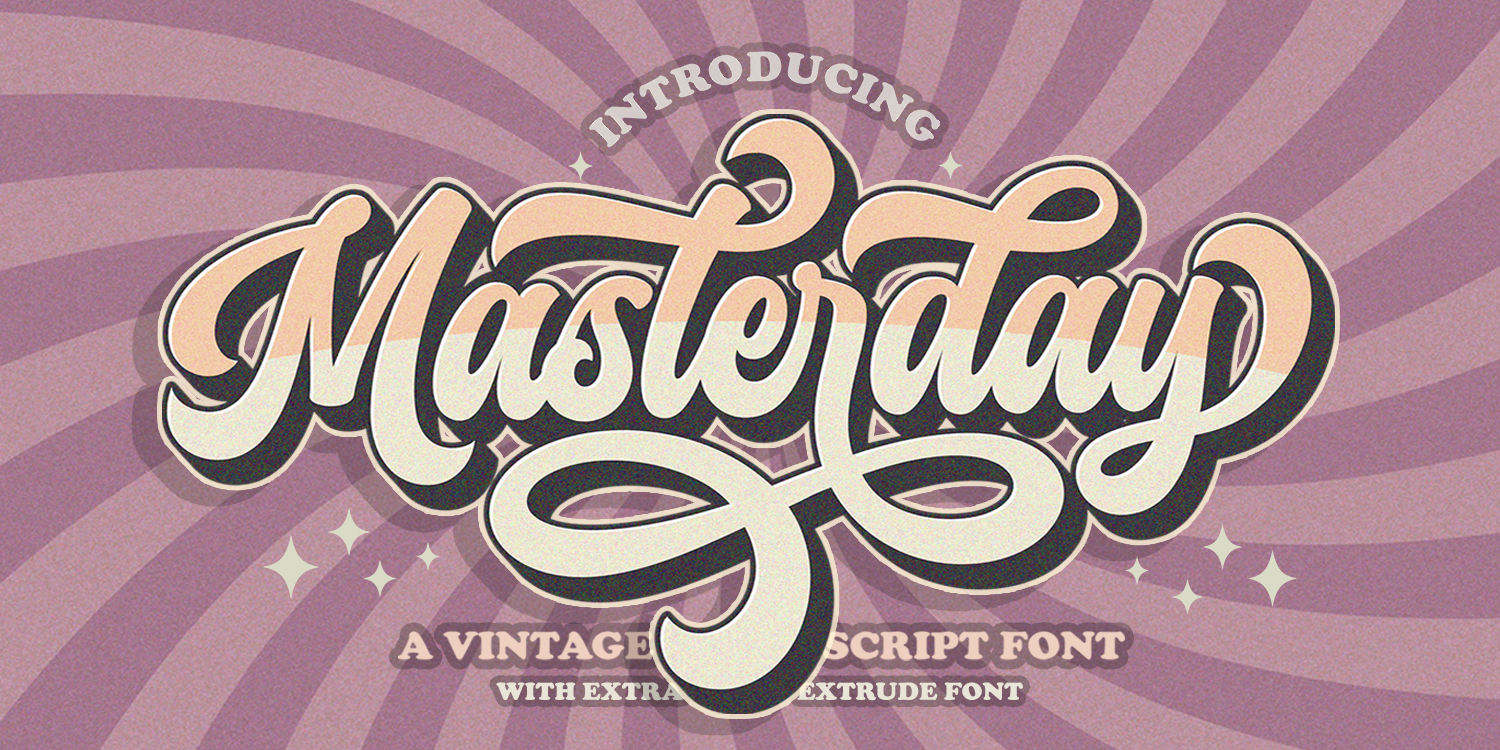
Masterday Font is perfect for premium corporate branding, executive presentation materials, luxury business cards, high-end conference signage, professional service marketing, master class promotions, elite coaching programs, success-oriented publications, leadership development materials, and sophisticated business communications that demand excellence and authority.
What makes Masterday Font exciting is its ability to convey mastery, achievement, and professional excellence through its confident letterforms that embody the spirit of successful leadership and accomplished expertise. This commanding typeface captures the essence of peak performance and professional mastery with its balanced proportions and authoritative character. The font's sophisticated presence inspires confidence and respect, making it ideal for brands and individuals who represent the pinnacle of their fields.
The Masterday Font family includes regular, medium, and bold weights designed for maximum professional impact across business applications. Special achievement symbols, success-oriented ornaments, and executive-level decorative elements complement the main typeface, while enhanced kerning ensures optimal readability for both boardroom presentations and intimate business correspondence.
Masterday Font Free Download offers business professionals and designers access to typography that commands respect and projects authority. Its expertly crafted letterforms maintain excellent legibility while conveying an image of competence, success, and professional mastery. The font's versatile nature adapts seamlessly from corporate headquarters to entrepreneurial startups seeking to project expertise.
Achieve typographic mastery with Masterday Font and create designs that communicate professional excellence while inspiring confidence in your expertise and commitment to outstanding results.